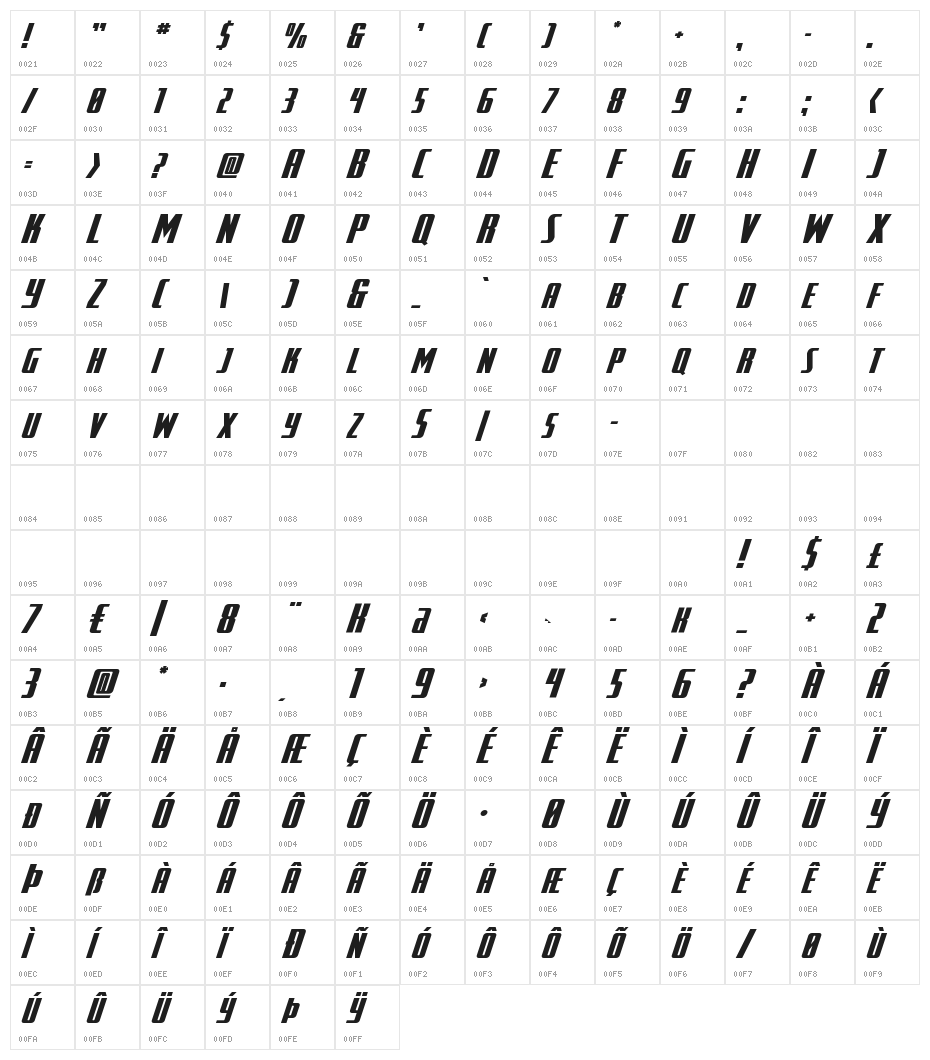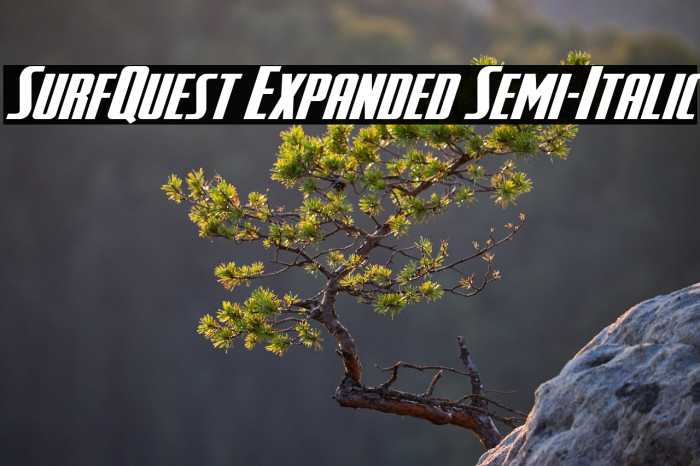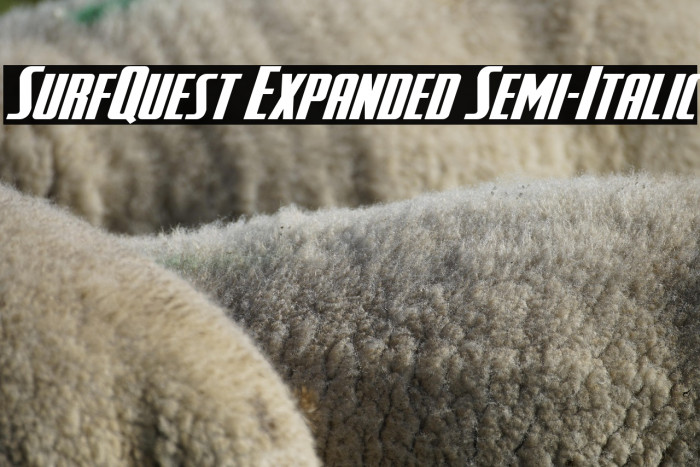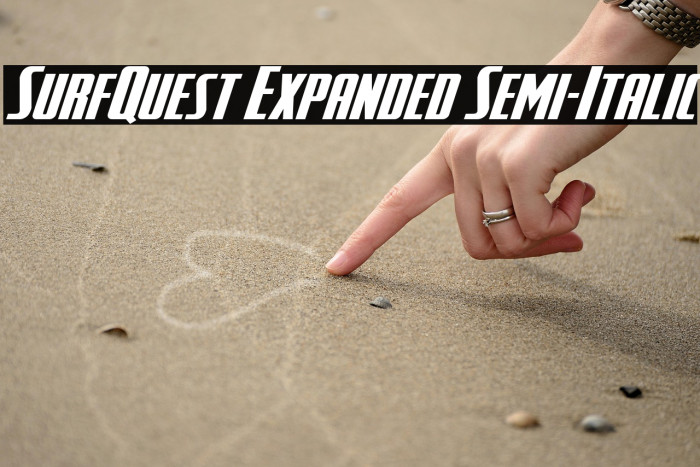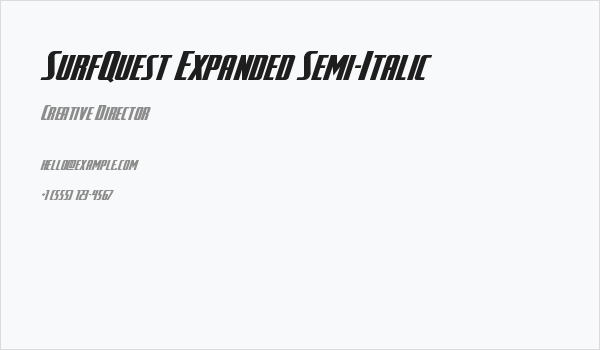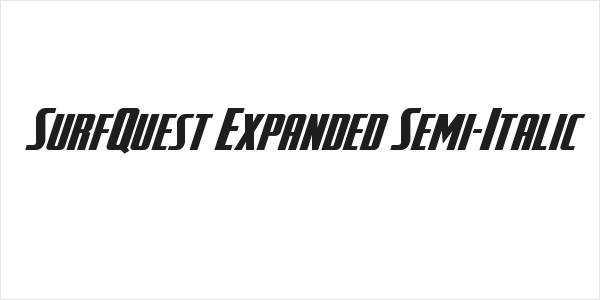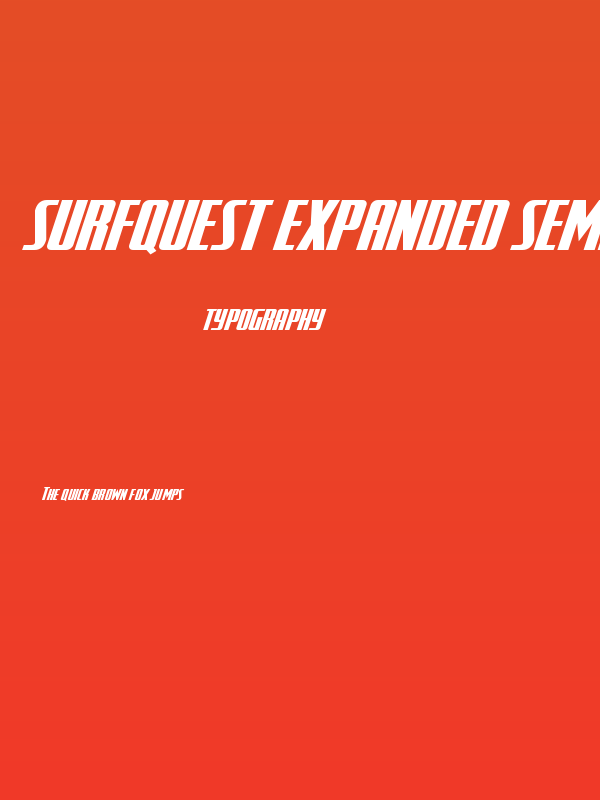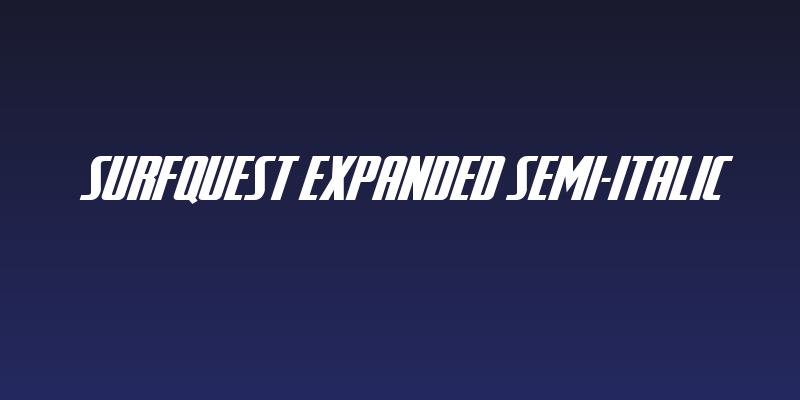
SurfQuest Expanded Semi-Italic Font
SurfQuest Expanded Semi-Italic Description
This font features a bold and dynamic style with an expanded width and semi-italic slant, giving it a sense of movement and energy. The characters are sharply defined with a modern aesthetic, making them stand out prominently. The uppercase letters are particularly striking, with a strong presence that commands attention. The numerals and special characters maintain the same boldness and clarity, ensuring consistency across all text elements. The font's design is ideal for projects that require a contemporary and impactful look.
| Proposed Projects | Ideal for branding, sports team logos, dynamic posters, and modern advertising campaigns. |